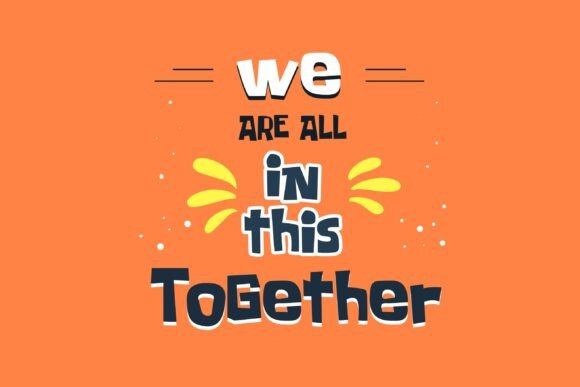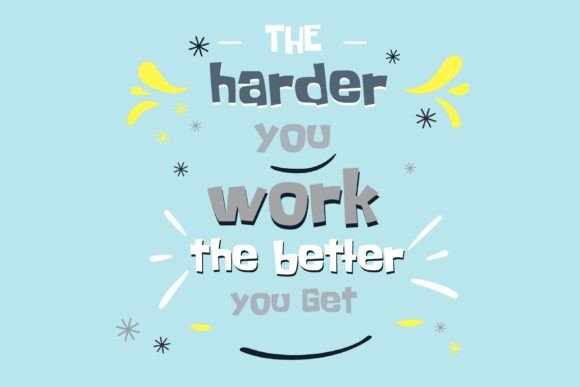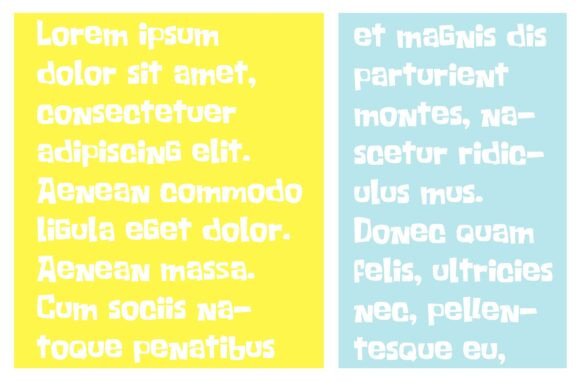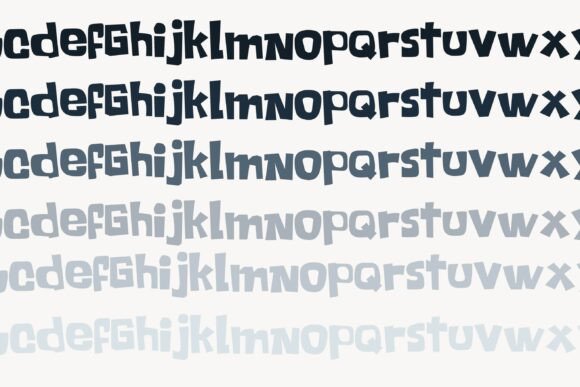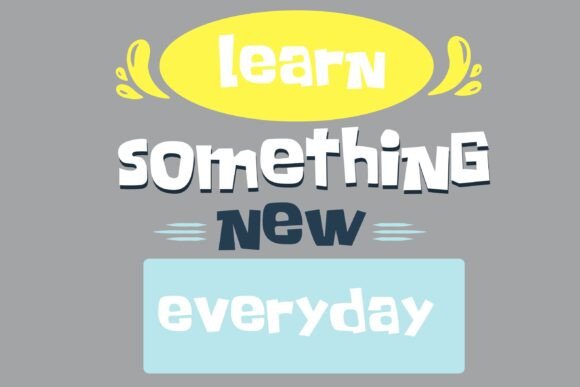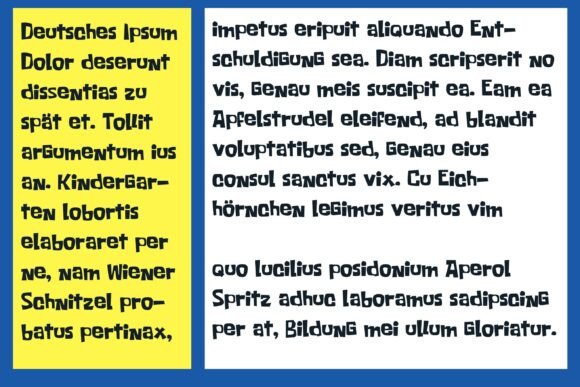
Introduction to Krabpants Font
This hand-crafted font is a whimsical sans serif with chunky, thick, whimsical lettering.
A hand-crafted font is a font that is designed to look like it was written by hand It is often used for invitations, greeting cards, and other items.
Key Features of Krabpants Font
Why Choose Krabpants Font?
Krabpants Font offers exceptional quality and versatility, making it a valuable addition to your design toolkit. Whether you’re creating for personal projects or commercial use, Krabpants Font delivers professional results.